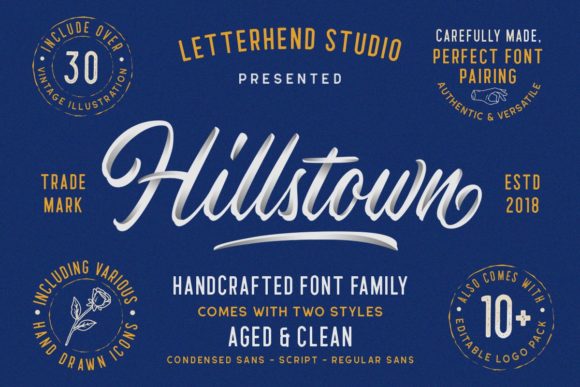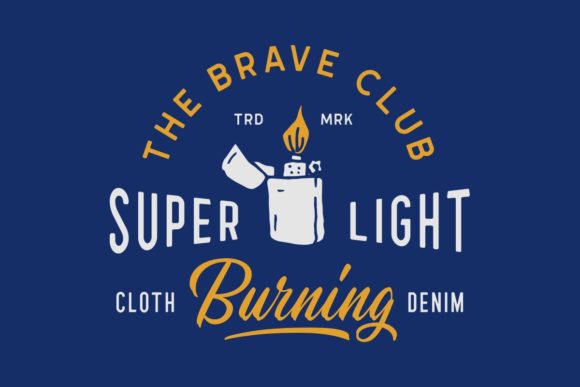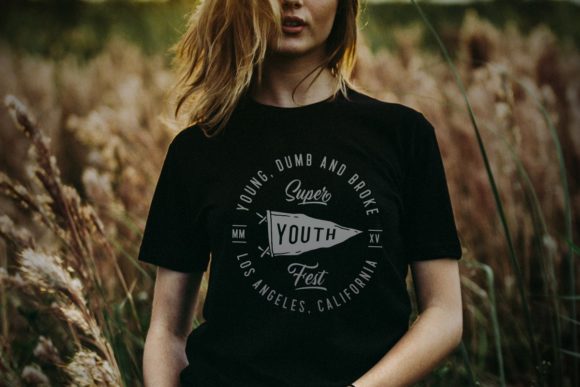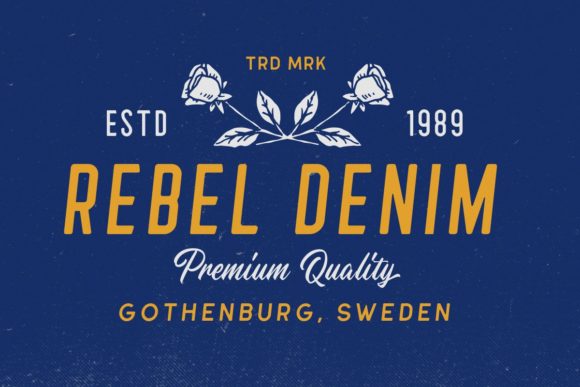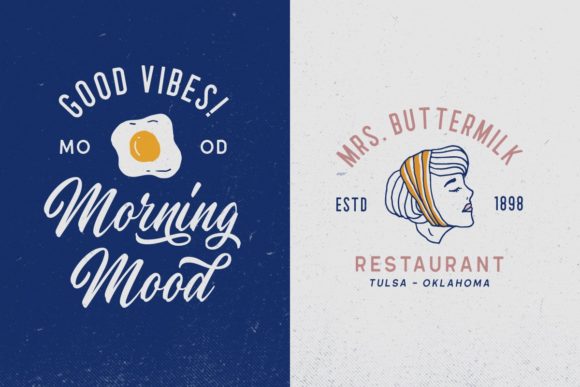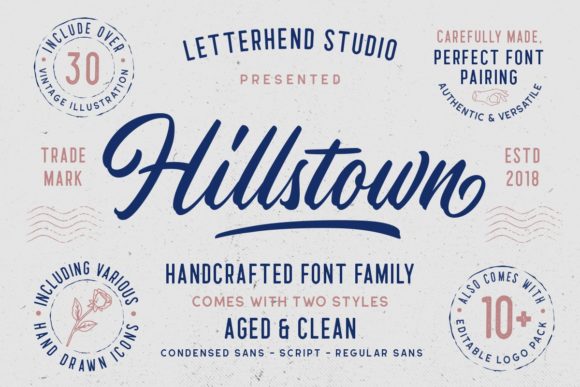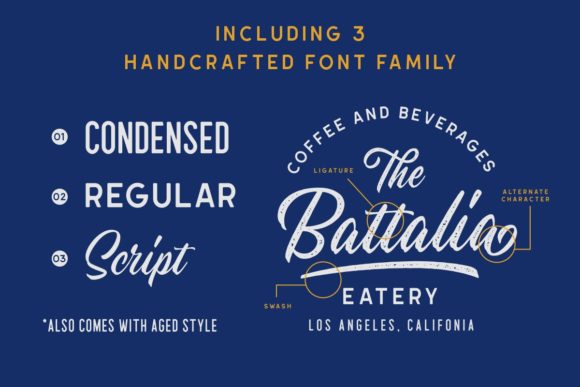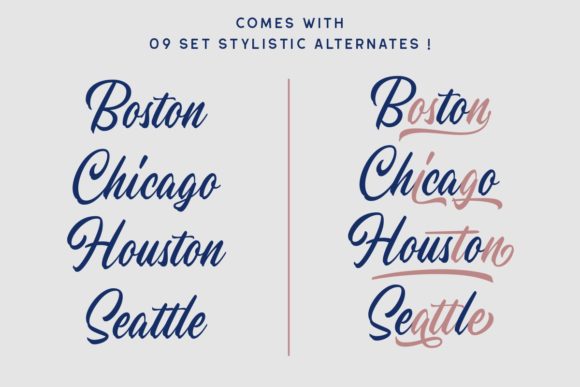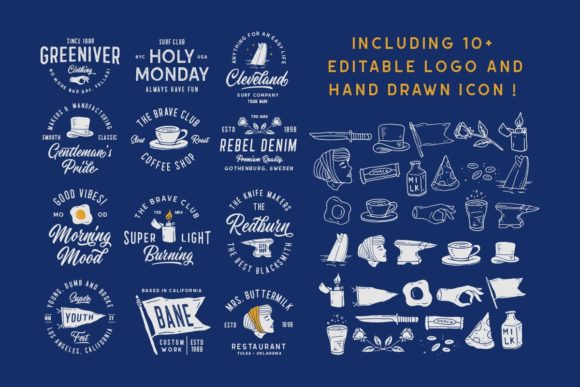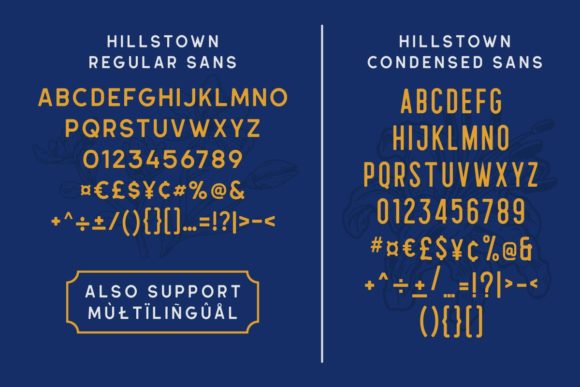
HomeScript FontsHillstown Font Script Fonts Hillstown Font FacebookXPinterestWhatsApp Hillstown Font Poster 2 Hillstown Font Poster 3 Hillstown Font Poster 4 Hillstown Font Poster 5 Hillstown Font Poster 6 Hillstown Font Poster 7 Hillstown Font Poster 8 Hillstown Font Poster 9 Hillstown Font Poster 10 Hillstown Font Poster 11 Hillstown Font Poster 12 Hillstown Font Poster 13 About Hillstown Font Hillstown is a friendly and modern script font with unique style. Fall in love with its charming style! DOWNLOAD ON CREATIVE FABRICAThis font is sold and delivered by Creative Fabrica. Font Canyon may earn a commission if you buy through this link. People also explored History Jasmin Font Vintage Motif Spons Font Falling Stars Runlove Font Mountain Font Finetrace Font Handkerchief Font School Creative Font 286 0 TagsHillstown Font Previous articleHougbon FontNext articleCallonsky Font LEAVE A REPLY Cancel reply Comment: Please enter your comment! Name:* Please enter your name here Email:* You have entered an incorrect email address! Please enter your email address here Website: Save my name, email, and website in this browser for the next time I comment. Personal Use Free Anggraini Personal Use Free Read more about this font Farmhouse Christmas Personal Use Free Read more about this font Kensin Personal Use Free Read more about this font Cadosa Personal Use Free Read more about this font BLOG Elegant Wedding Invitation Fonts – Handwritten & Script Fonts Elegant Wedding Invitation Fonts Your wedding day is one of the most important moments of your life, and every detail matters—including your invitation design. Our... Where to Buy American Fonts Online in 2024 Best Fonts for YouTube Videos: Make Your Thumbnails Stand Out Exploring Font Trends